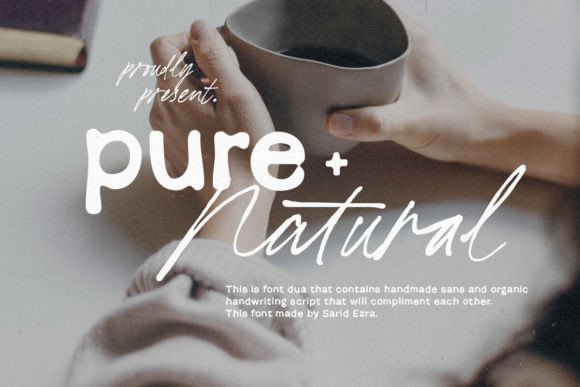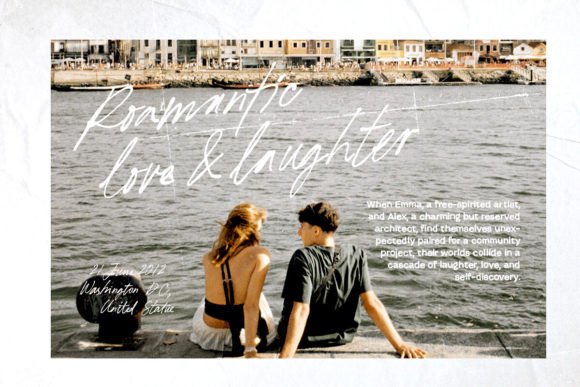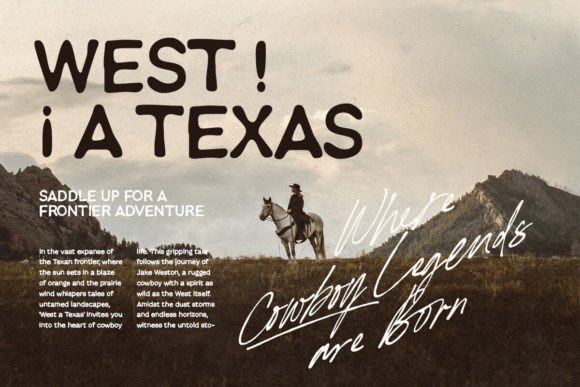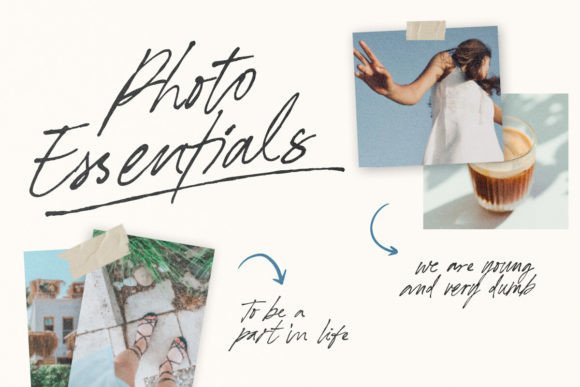
Pure Nature Font
About the Pure Nature Font
Add a touch of class to your work with the Pure Nature Font, a truly exceptional typeface. Pure Nature is a font duo that combines a handwritten script with ligatures and an organic sans serif offers a perfect blend of natural and modernity, providing both decorative flair and readability. You can use this font for any purposes especially project that need the human touch and handmade looks. This font duo also support multi language.
Pure Nature excels in branding projects requiring a handcrafted, approachable feel, particularly logos, short taglines, and packaging designs. It’s ideal for invitations, stationery, and short-form content where its decorative script adds visual interest. However, avoid using it for large blocks of body text or UI elements; the script’s organic nature compromises readability in extended passages.
Its friendly, slightly whimsical personality pairs well with clean sans-serif fonts like Open Sans or Lato for a balanced contrast. For a more sophisticated look, consider pairing it with a classic serif like Garamond or a geometric sans-serif like Montserrat. Avoid pairing it with other highly decorative or overly ornate fonts, which could clash with its natural aesthetic.
The overall mood is one of relaxed modernity; it projects approachability and authenticity, making it suitable for brands focused on natural products, artisan crafts, or organic food.
Pure Nature Font Usage Examples
Pure Nature Font Example